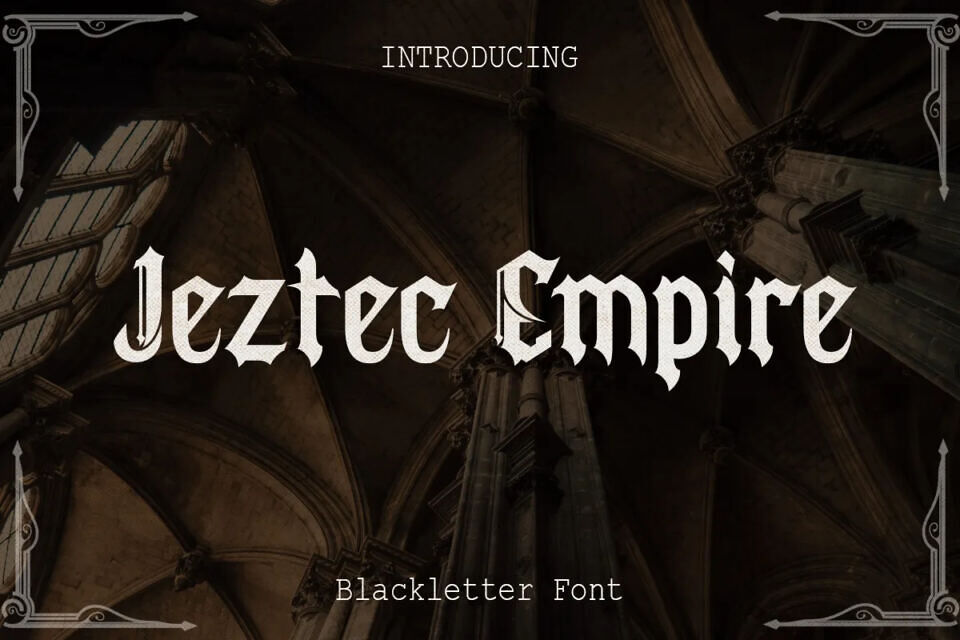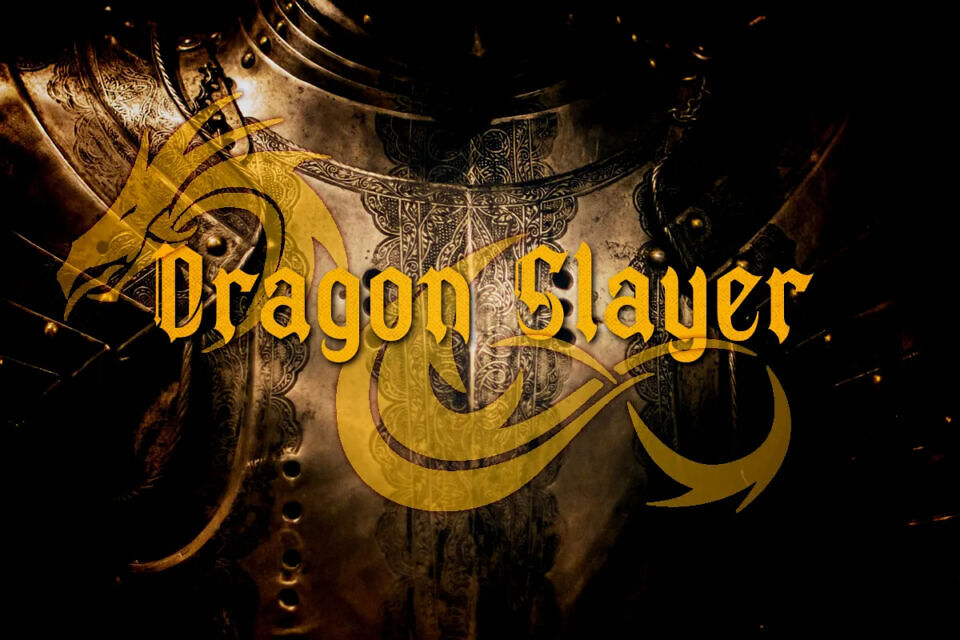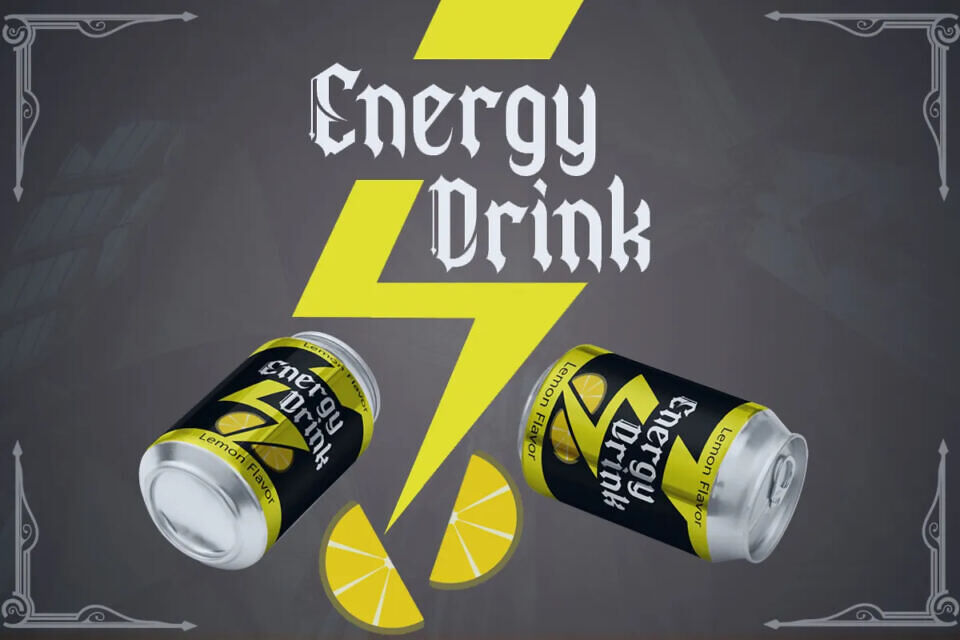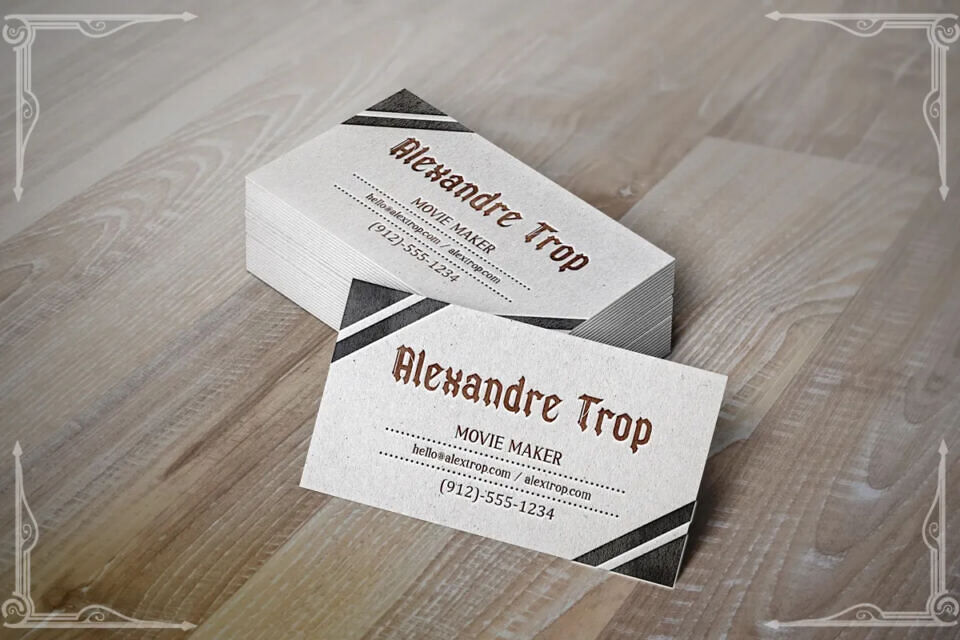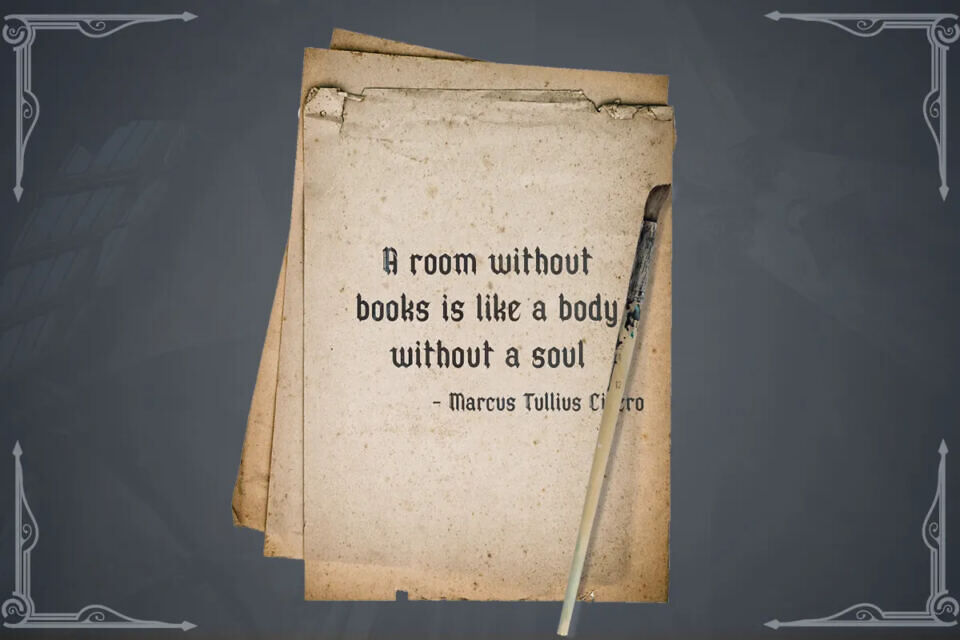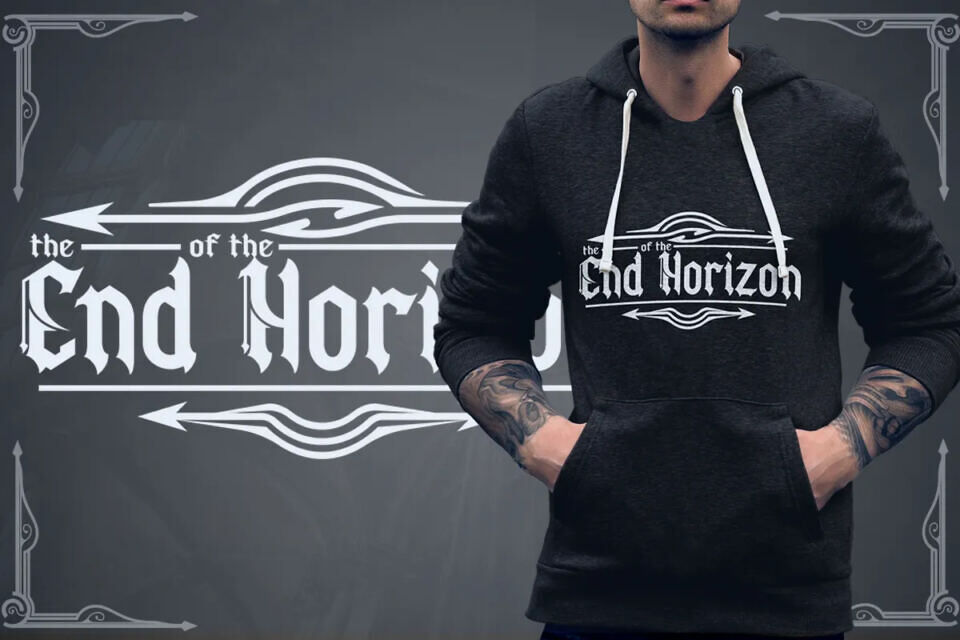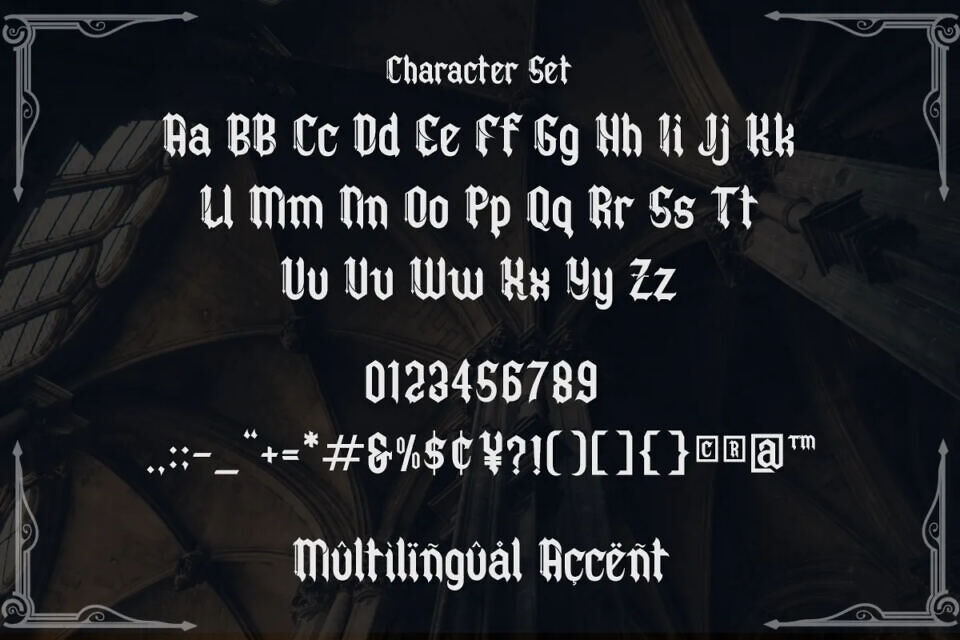
Jeztec Empire Font
Jeztec Empire is a bold and distinctive blackletter-style font that brings a powerful, historical aesthetic to your designs. Its intricate and commanding letterforms are perfect for creating a dramatic impact, making it ideal for logo design, labels, posters, and any project that demands a unique and authoritative touch.
The font’s gothic-inspired elements and strong presence add an air of sophistication and timelessness, ensuring that your design captures attention and leaves a lasting impression. Whether you’re aiming for a vintage feel or a modern twist, Jeztec Empire provides the versatility to elevate your creative work.